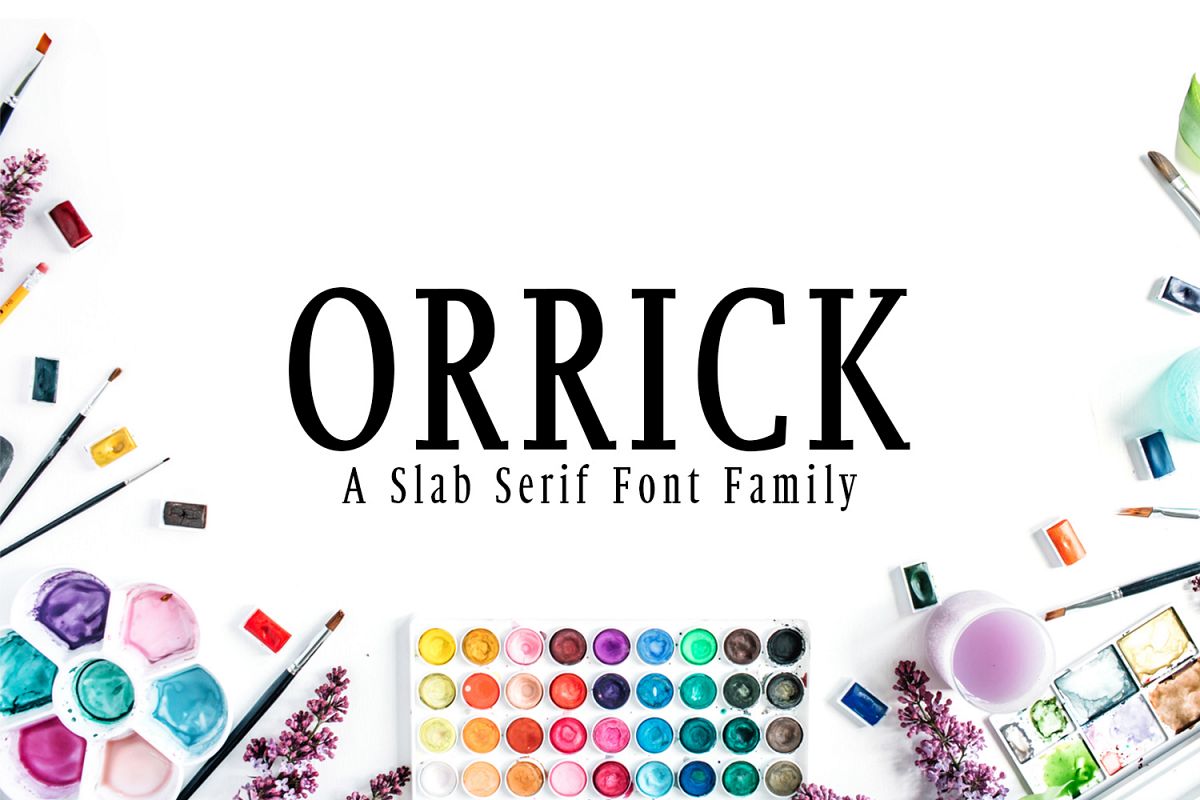
Orrick Slab Serif Font Family
Orrick is a set of 3 weights and it is good for making creative displays and it has slab serif font. It’s a lovely and unique slab serif font in our store, allowing you to make each word look completely stylish!It Suits best for modern / clean designs, logos, headlines, banners and templates etc. It looks gorgeous in all caps with a wide-set spacing if you want to try a classy look, or beautiful on its own in capital and lowercase letters for something completely timeless.Features
• Uppercase Multilingual Letters
• Regular, Medium and Black
Orrick Font Features:
• Uppercase Multilingual Letters
• Lowercase Multilingual Letters
• Alternative